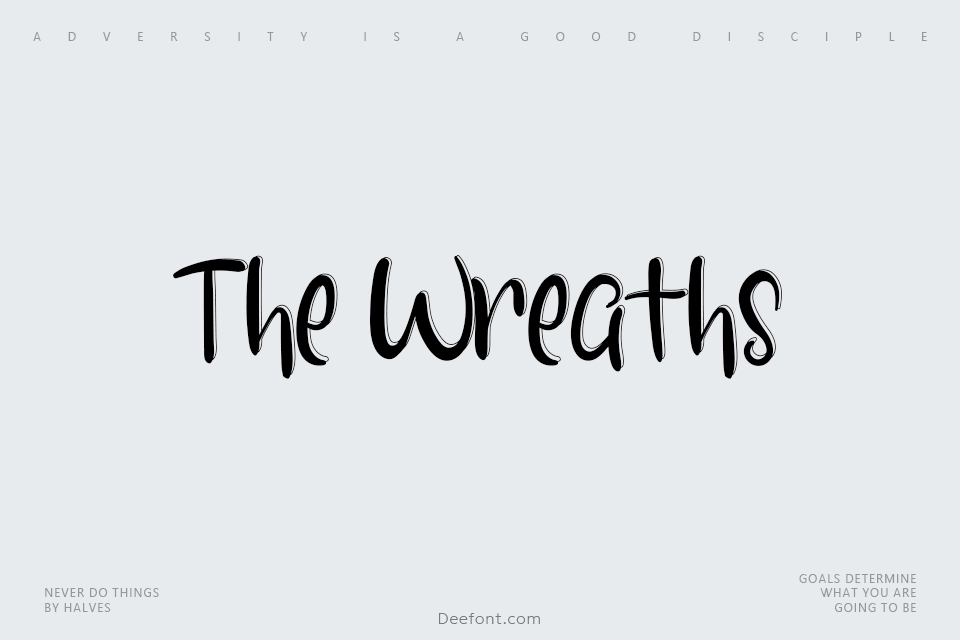
The Wreaths Font
The Wreaths is an elegant and bold display script font with unique, handcrafted letterforms designed to create stunning visual impact. Perfect for headlines, branding, invitations, and creative typography projects, this versatile typeface combines sophistication with artistic flair. The flowing script style delivers elegant proportions that elevate any design composition. Ideal for designers seeking distinctive typography with professional quality and distinctive character for memorable visual communication.